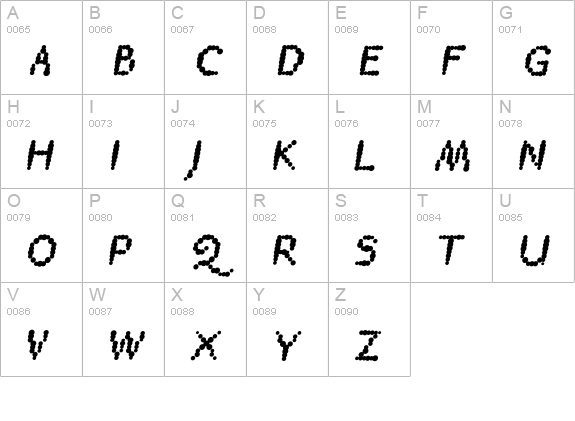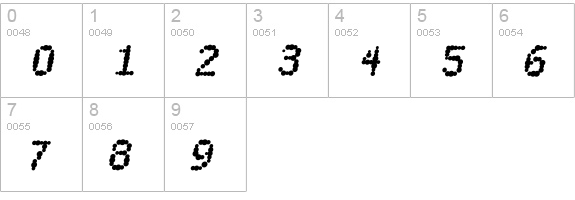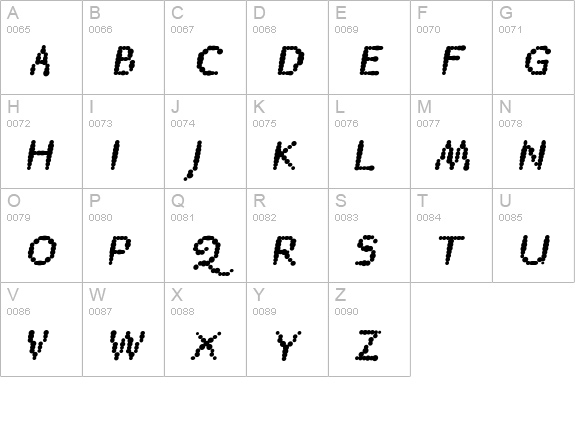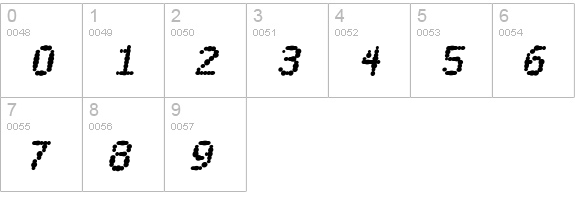
TTRheostatCelsius-BoldItalic is a uniquely elegant and versatile font that effortlessly combines boldness with a touch of sophistication. With its slanted and italicized design, this font exudes a sense of modernity and flair, making it perfect for a wide range of creative projects. The bold strokes of TTRheostatCelsius-BoldItalic create a strong visual impact, drawing attention to any text it adorns. Whether used for branding, headlines, or graphic designs, this font commands attention and leaves a lasting impression. What sets TTRheostatCelsius-BoldItalic apart is its distinct character, making it ideal for projects that require a touch of individuality. The italicized slant adds a subtle sense of drama and movement, capturing the eye and effortlessly guiding it across the text. This font is not only visually striking but also highly legible, ensuring that your message is conveyed with clarity and professionalism. Whether used for print or digital media, TTRheostatCelsius-BoldItalic ensures that your content remains engaging and easy to read. And the best part? TTRheostatCelsius-BoldItalic is available for free download at FontsMarket.com. This means that you can easily access and utilize this stunning font for any personal or commercial project without breaking the bank. With just a few clicks, you can enhance your designs with a touch of bold elegance. So why wait? Download TTRheostatCelsius-BoldItalic today and elevate your designs to new heights. Whether you're a graphic designer, a web developer, or simply someone looking to add a touch of sophistication to your personal projects, this font is sure to impress. Get your hands on this free font and let your creativity soar.